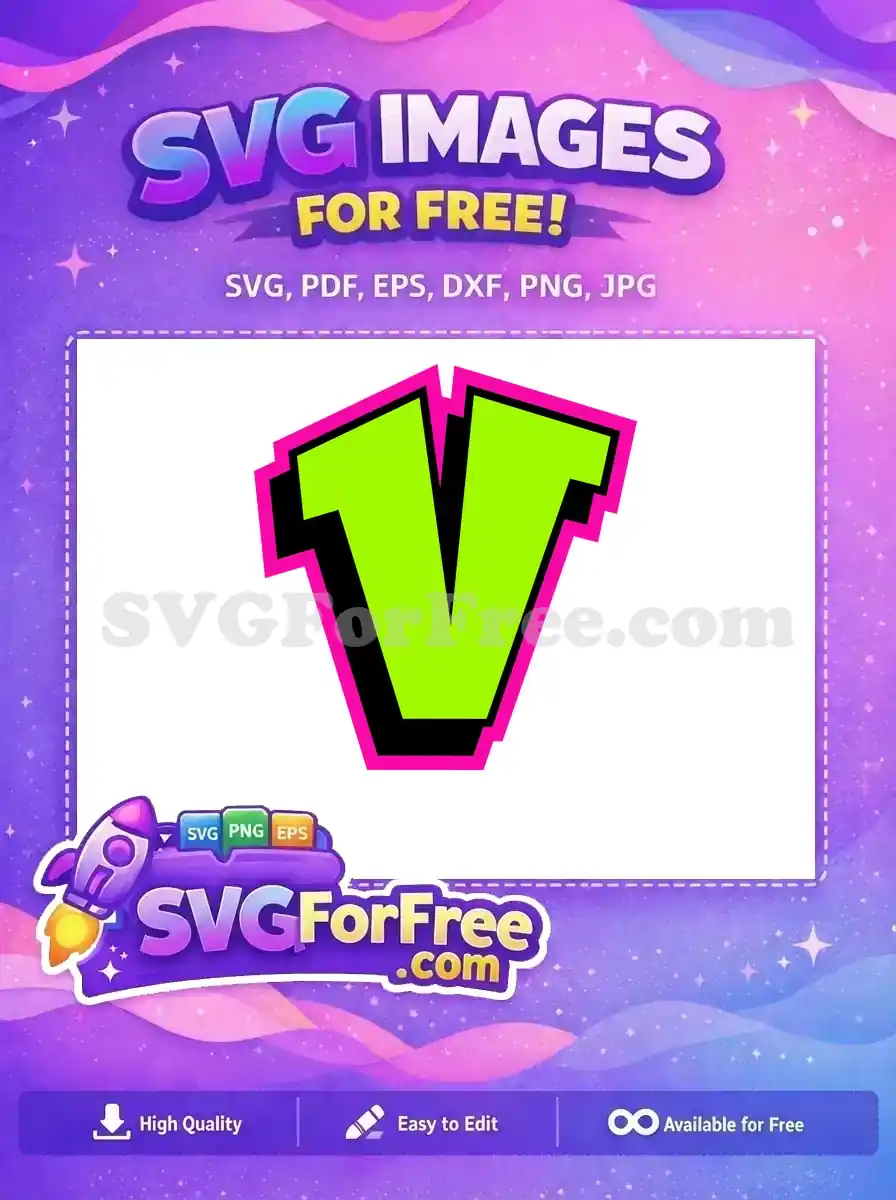
Free Neon Green Font Free Pink Outline Letter V Free SVG – Instant Download
Free graphic of a vibrant graffiti letter ‘V’ with lime green fill, a hot pink outline, and 3D shadow.
Free Neon Green Font Free Pink Outline Letter V Free SVG